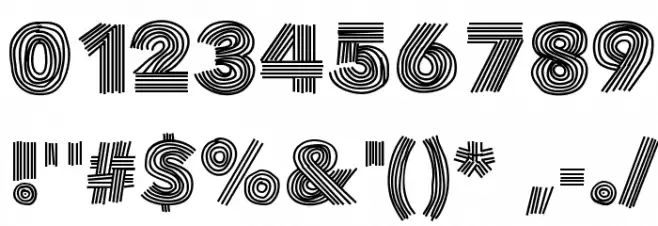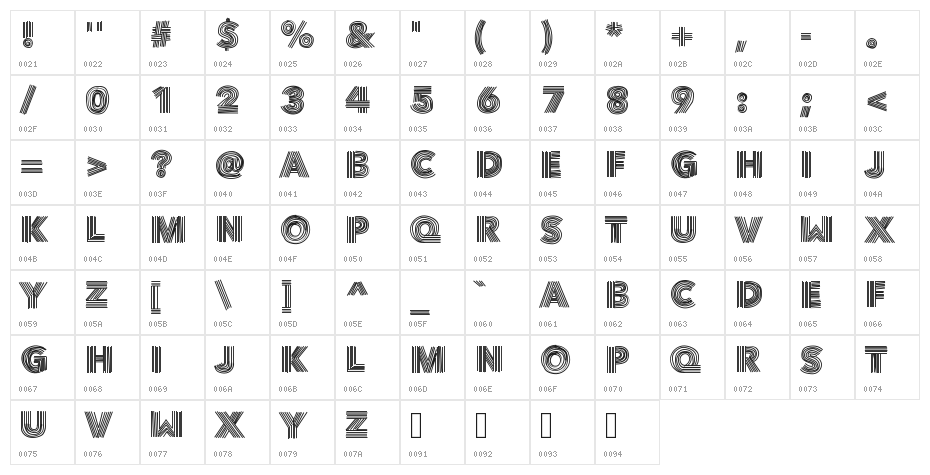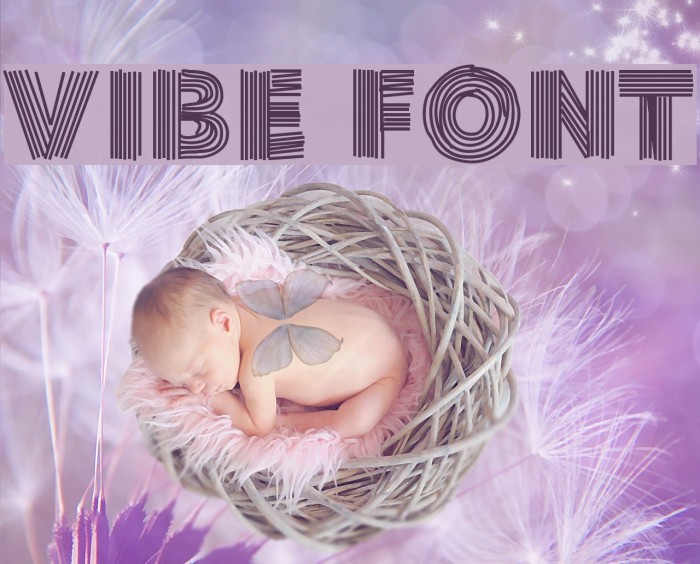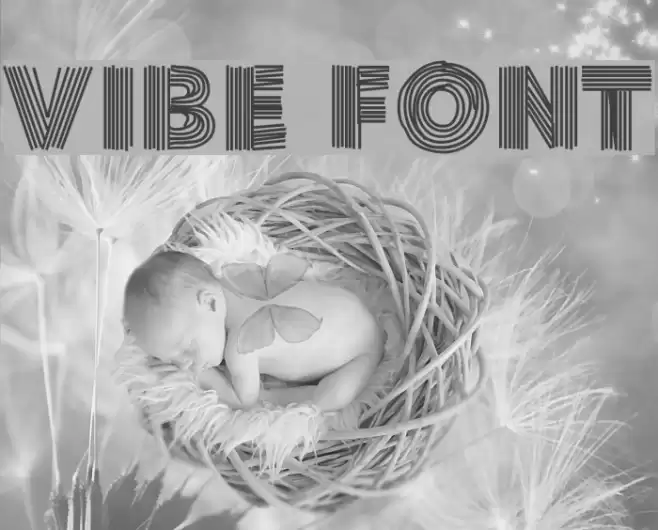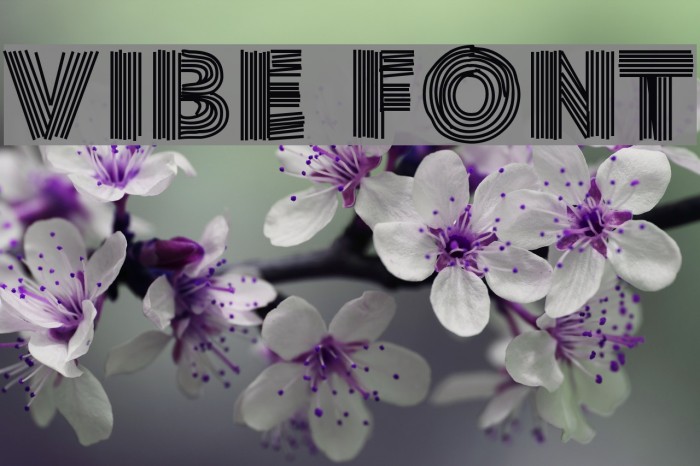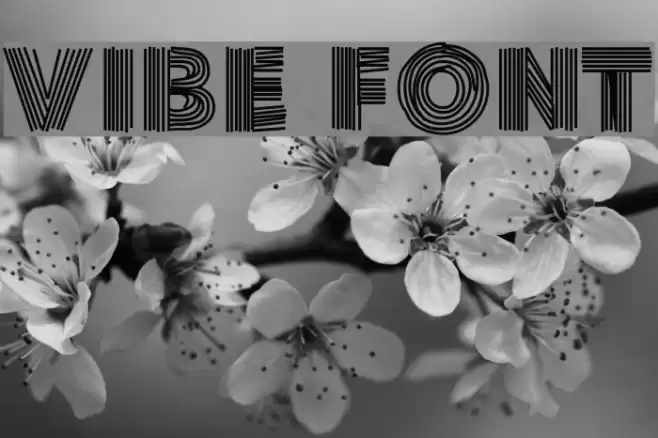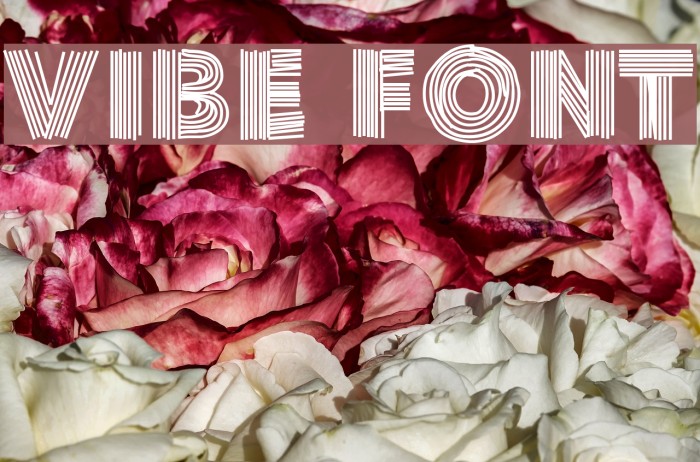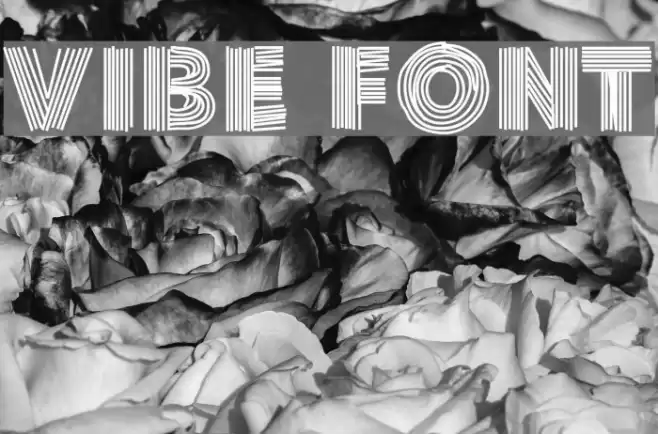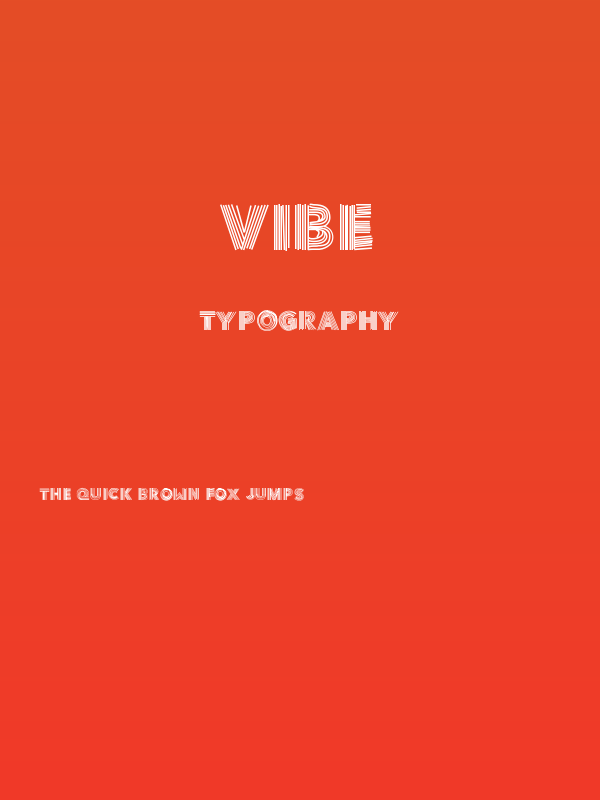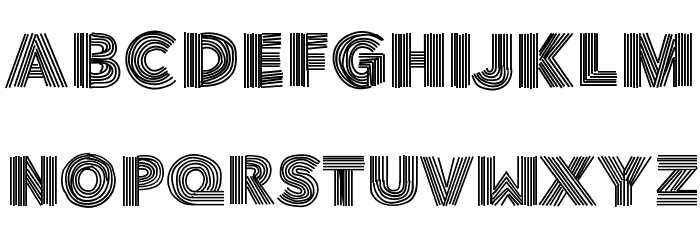
Vibe Font
Vibe Description
This font features a unique, decorative style characterized by multiple parallel lines forming each character, creating a sense of depth and movement. The uppercase and lowercase letters, along with numbers and special characters, maintain a consistent design, emphasizing a geometric and modern aesthetic. The lines are evenly spaced, giving the font a structured yet dynamic appearance. This design is eye-catching and suitable for projects that require a bold statement. The font's intricate line work makes it ideal for large displays where its details can be fully appreciated.
| Proposed Projects | Ideal for posters, album covers, branding, and any project needing a bold, artistic touch. |